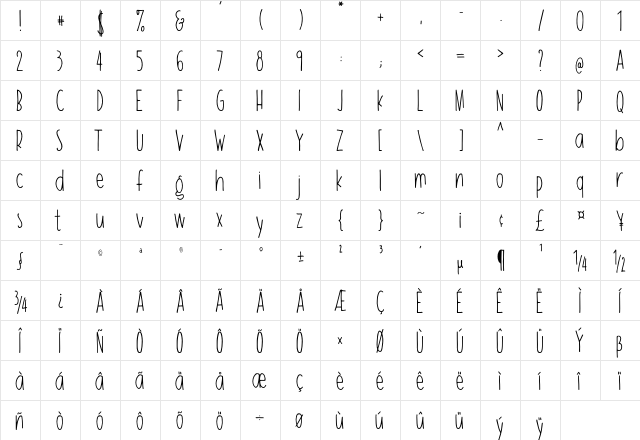
Zion Regular
Design Context for Zion Typeface
Zion is a composed and adaptable typeface that performs quietly and consistently across a wide range of design contexts.